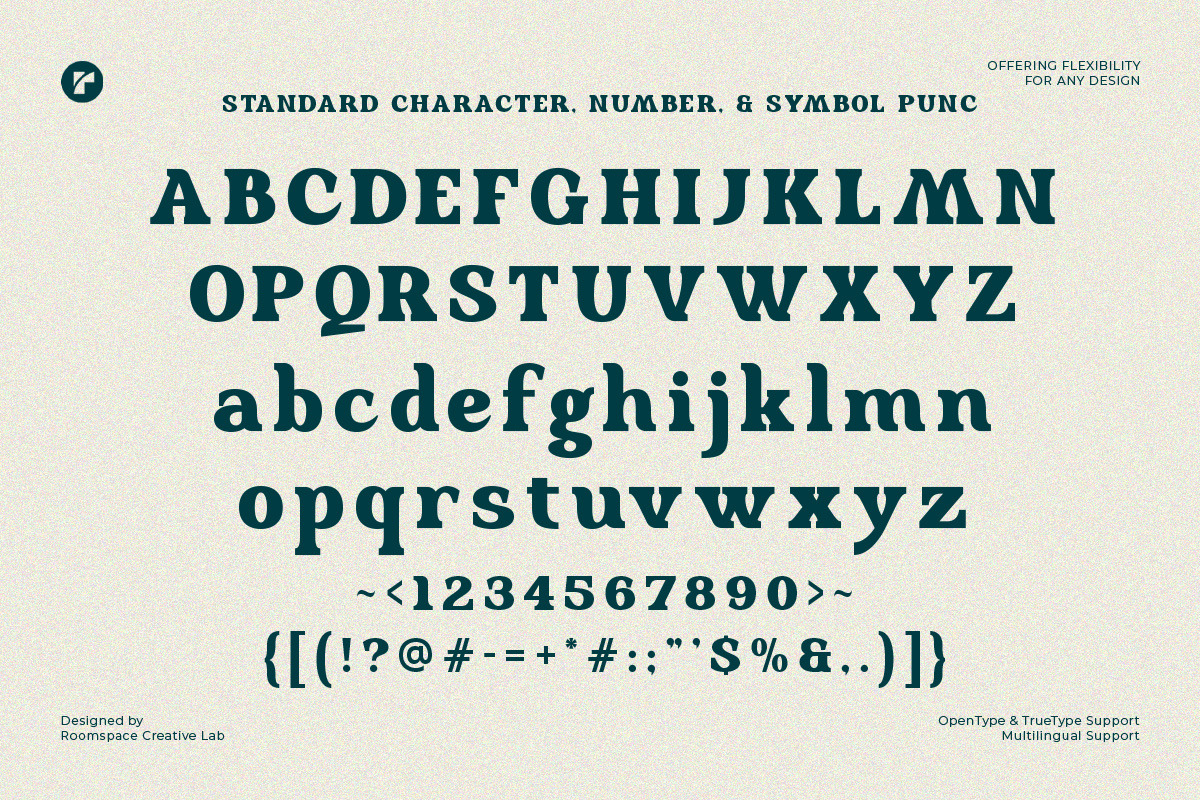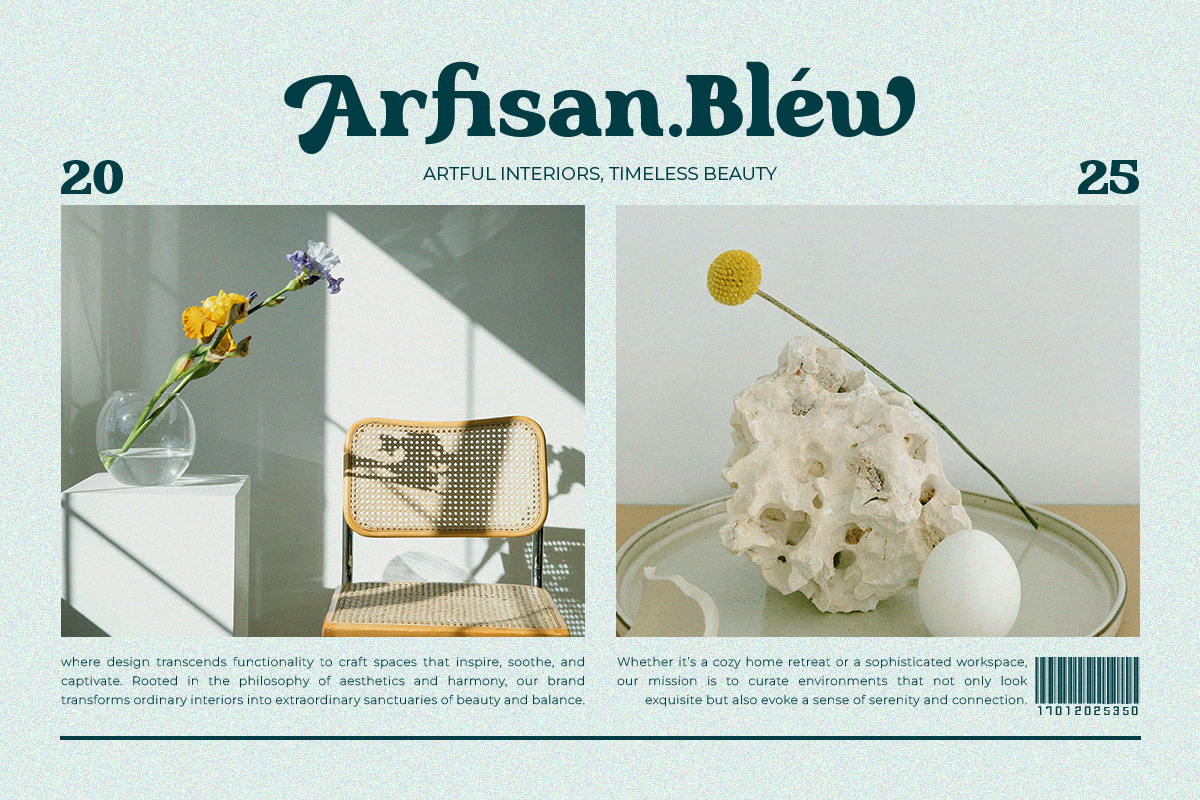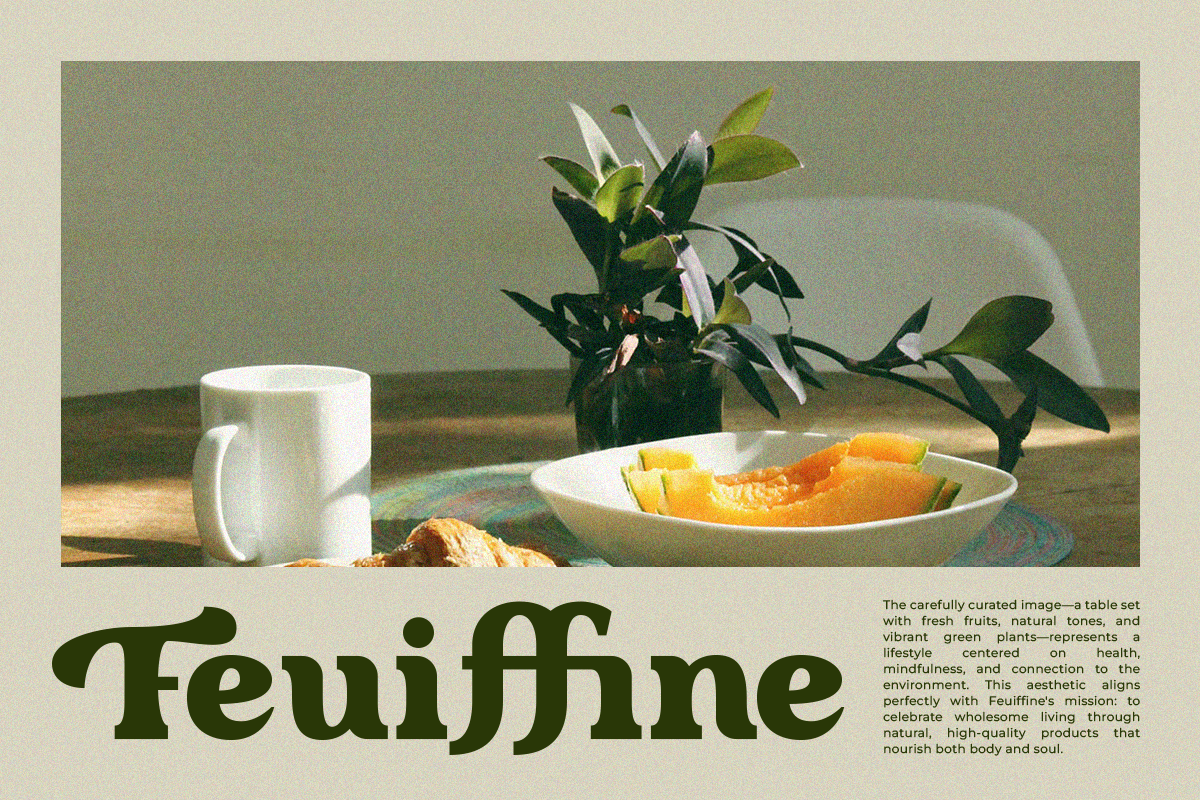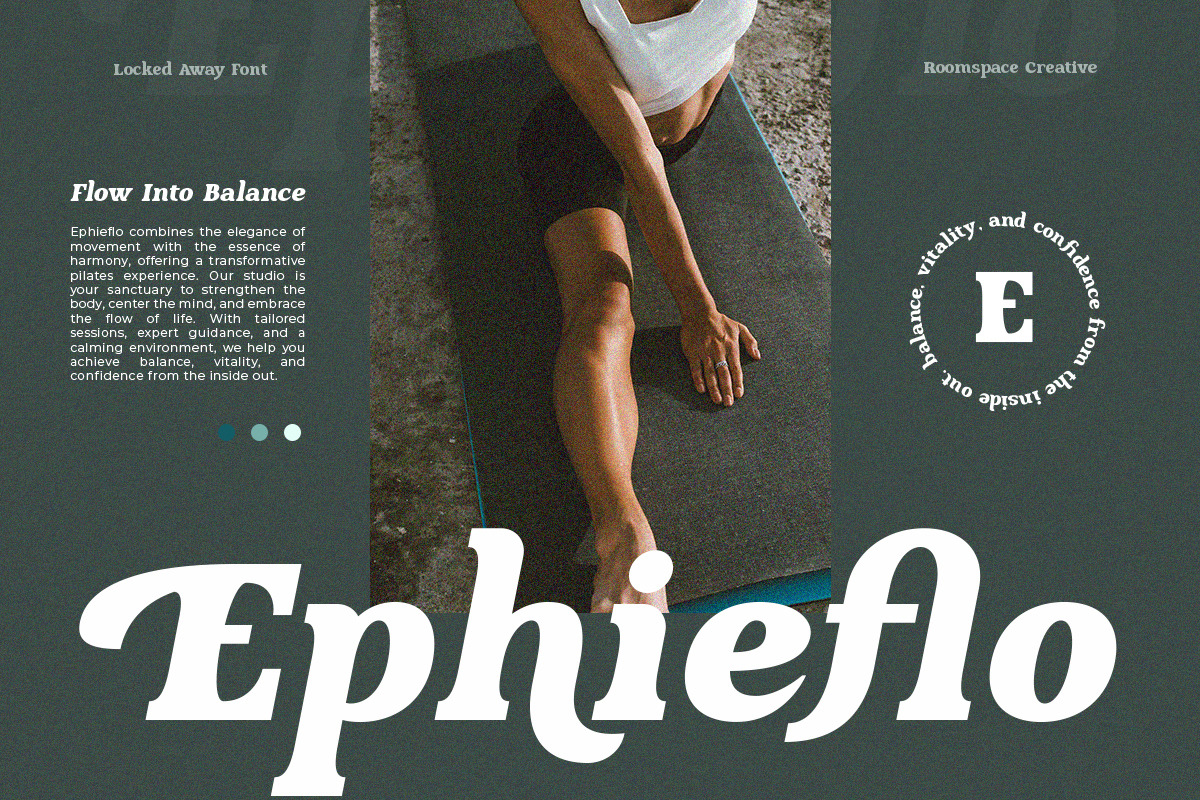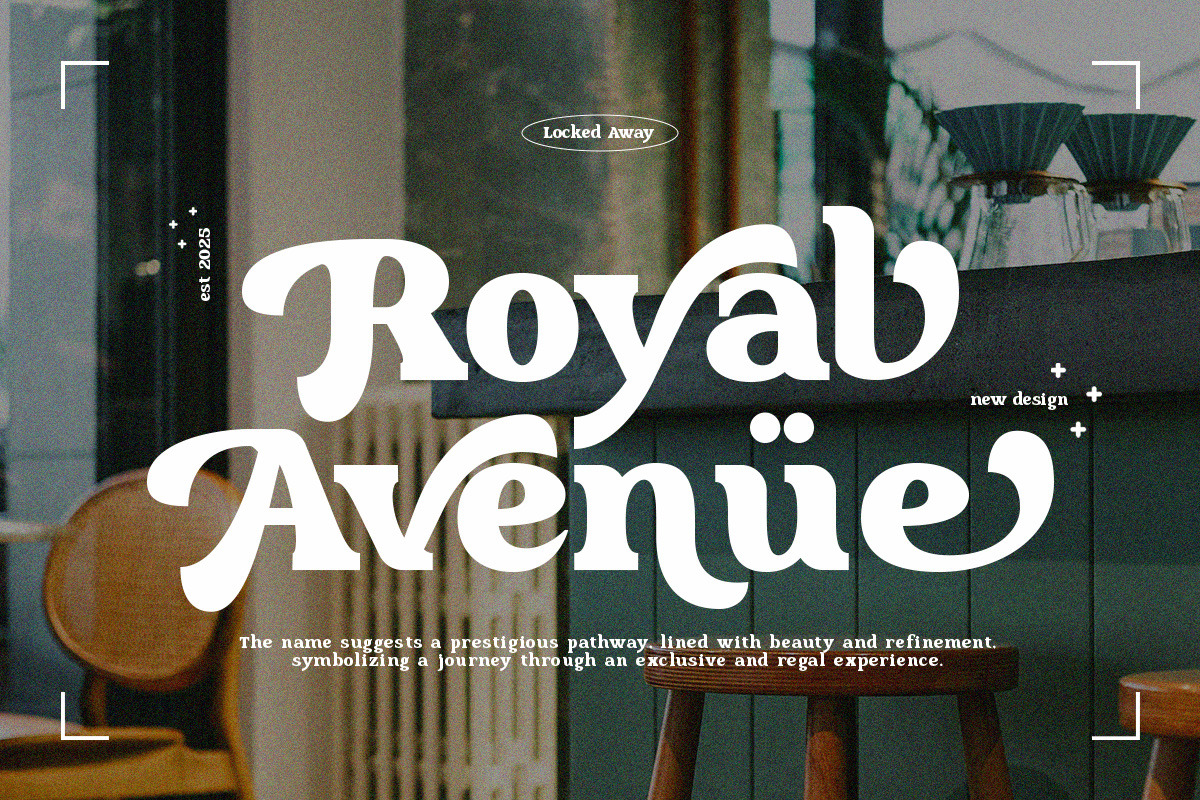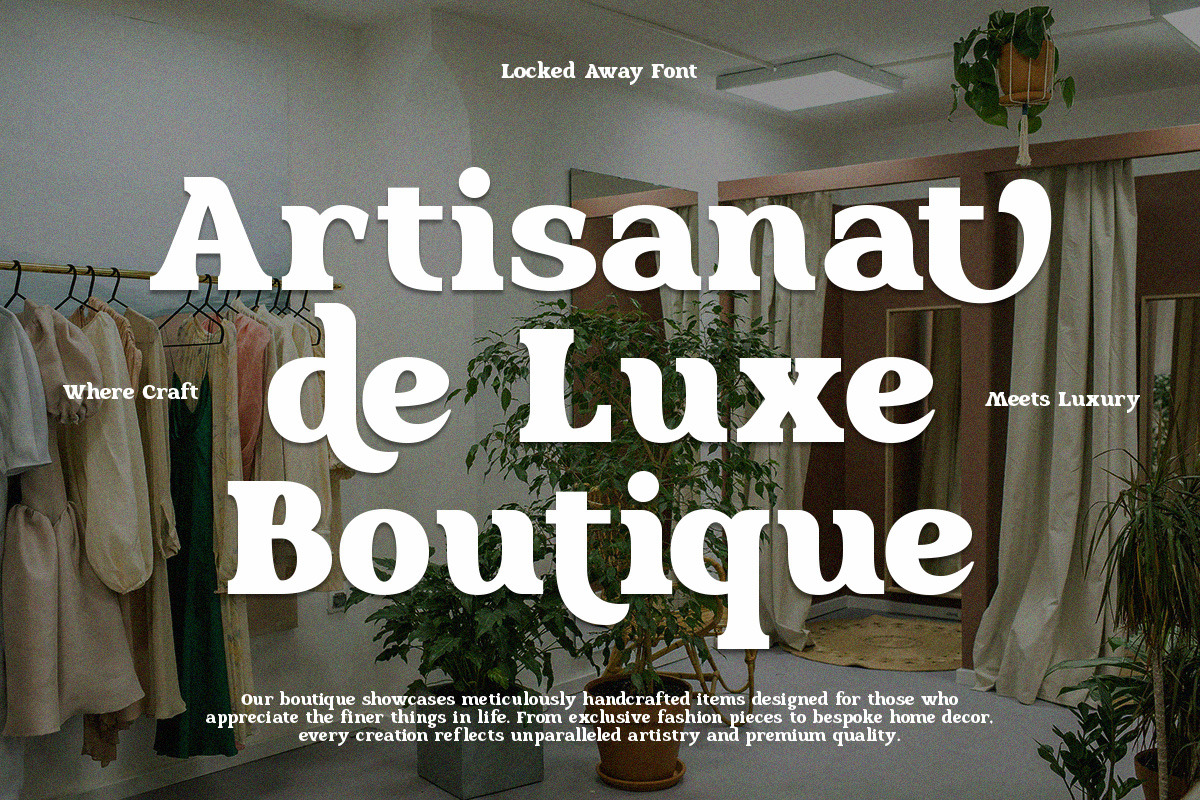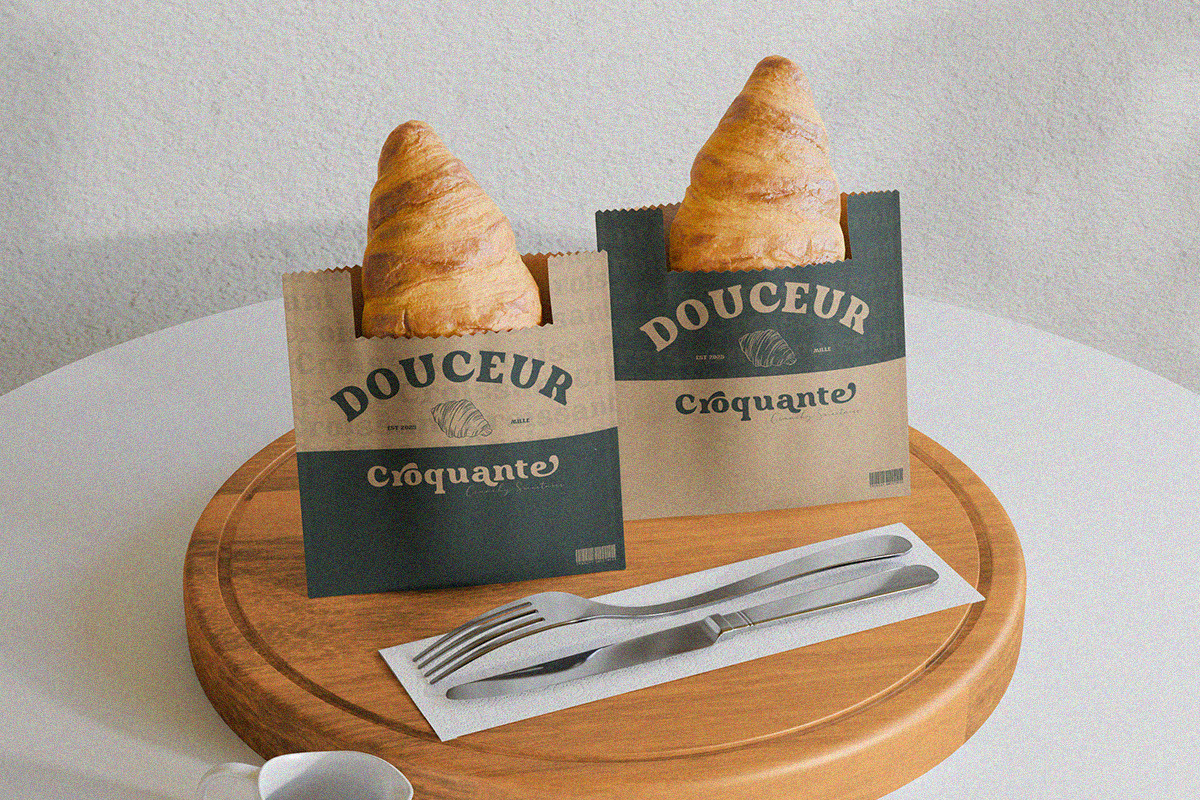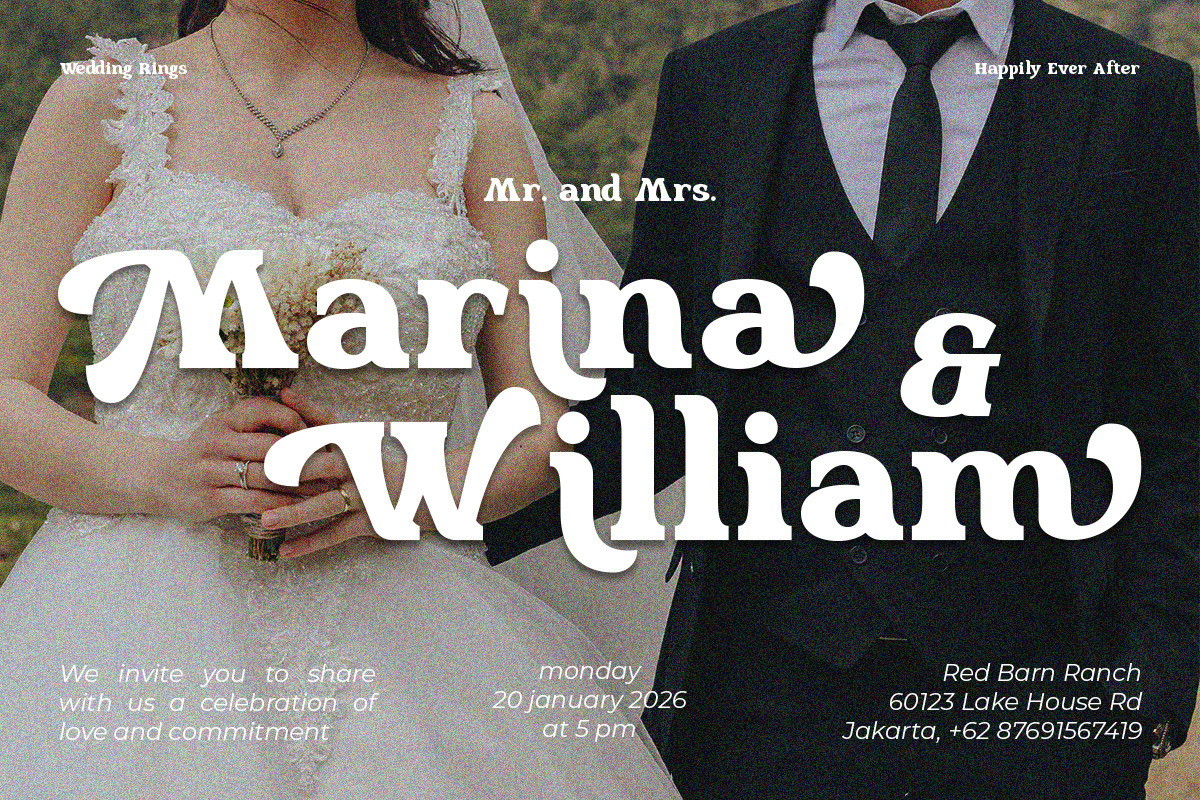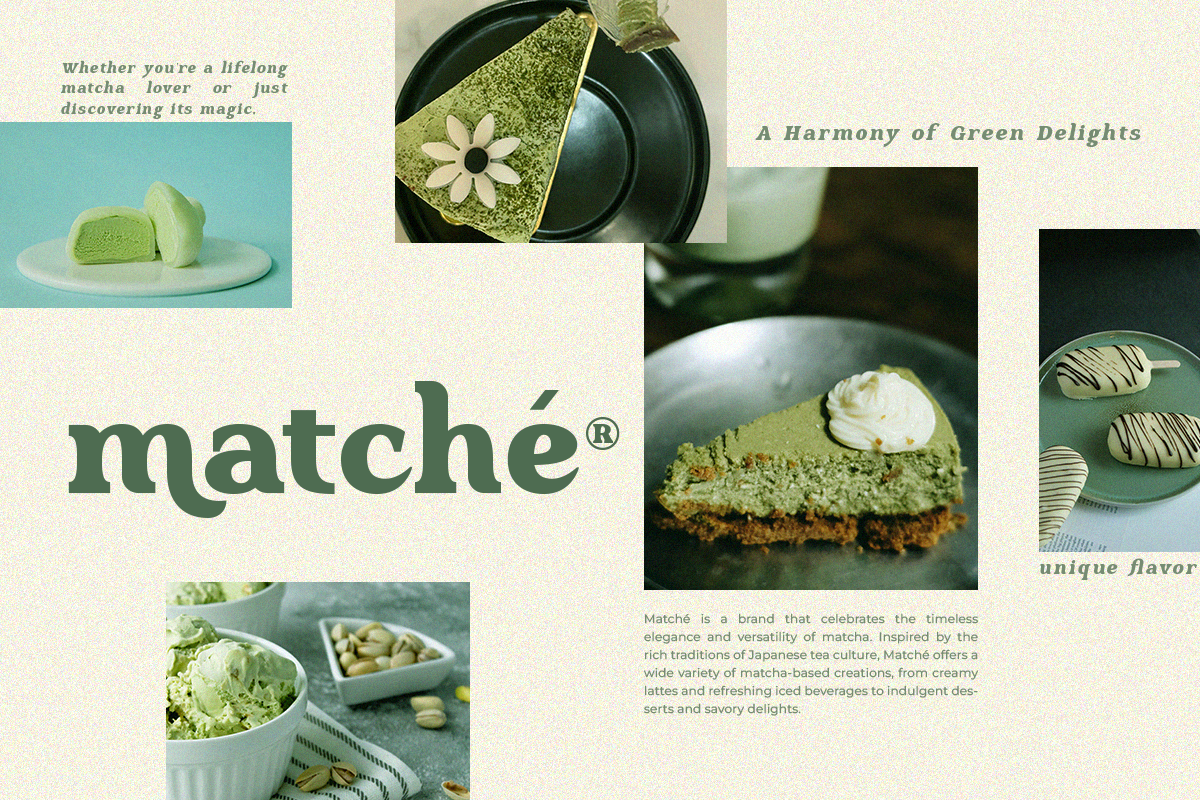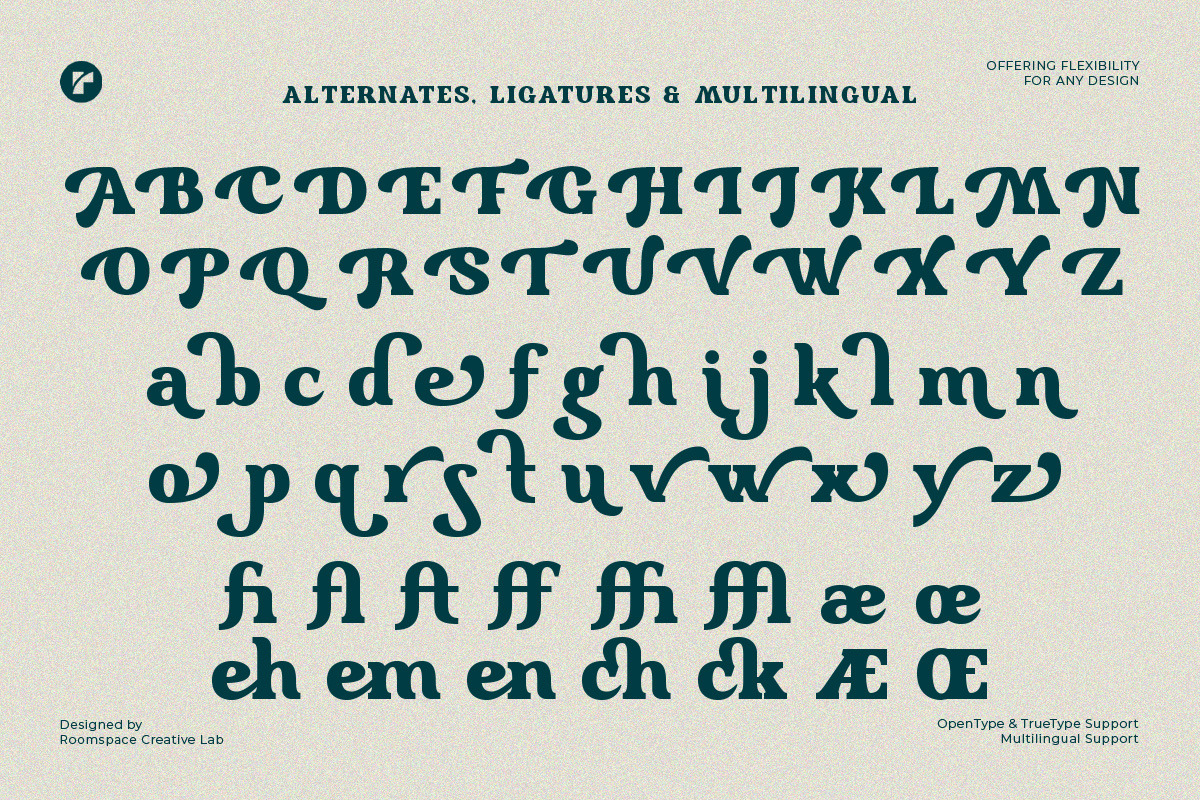
Locked Away -Swash Retro Vintage
Locked Away, a contemporary serif font that artfully combines sophistication with uniqueness. What truly sets Locked Away apart is its distinctive design: a complete set of swashes and tails that elevate each character, offering an elegant and creative touch.
These unique stylistic features can seamlessly integrate into your designs, allowing for endless layout possibilities and creative experimentation. Whether you're using the standard set of characters or exploring the decorative alternates, Locked Away guarantees striking typography in both uppercase and lowercase forms.
This versatile font is the perfect choice for modern logo and brand designs, luxurious product packaging, captivating display text, wedding invitations, website headers, and so much more. Its clean yet artistic aesthetic ensures it stands out in any application, making your work truly unforgettable.